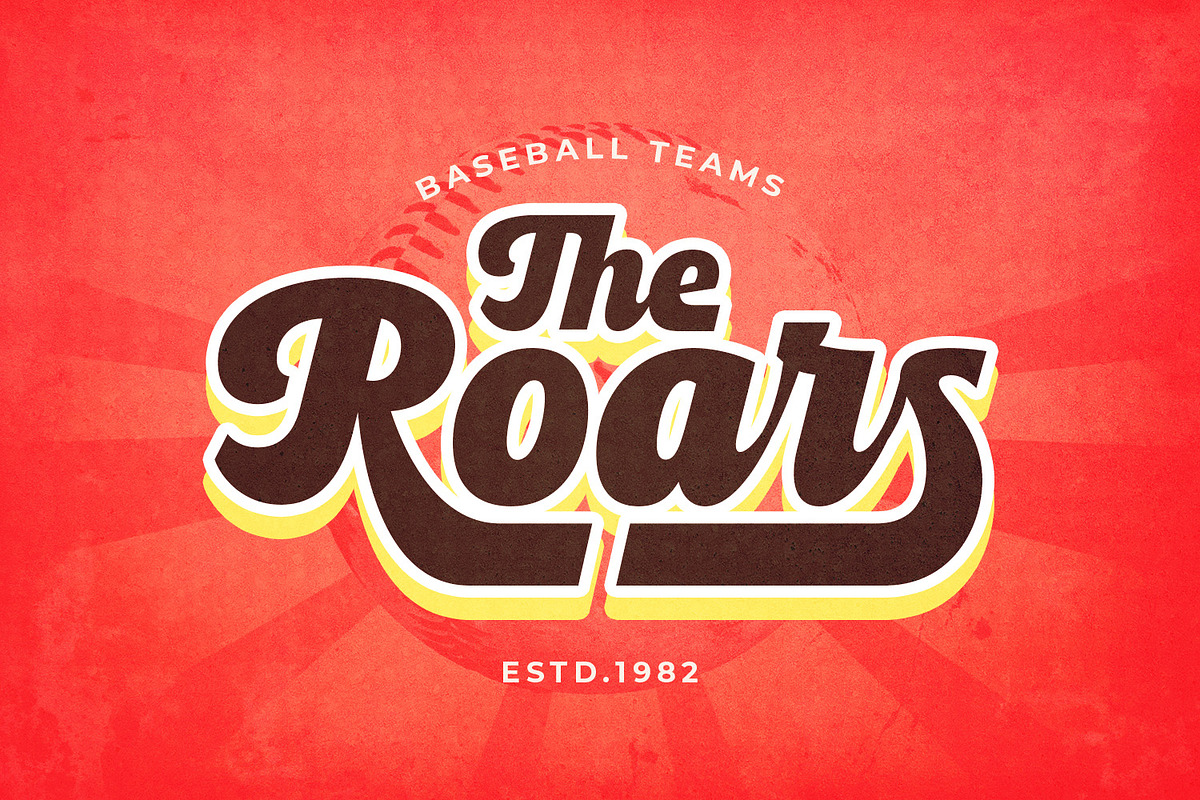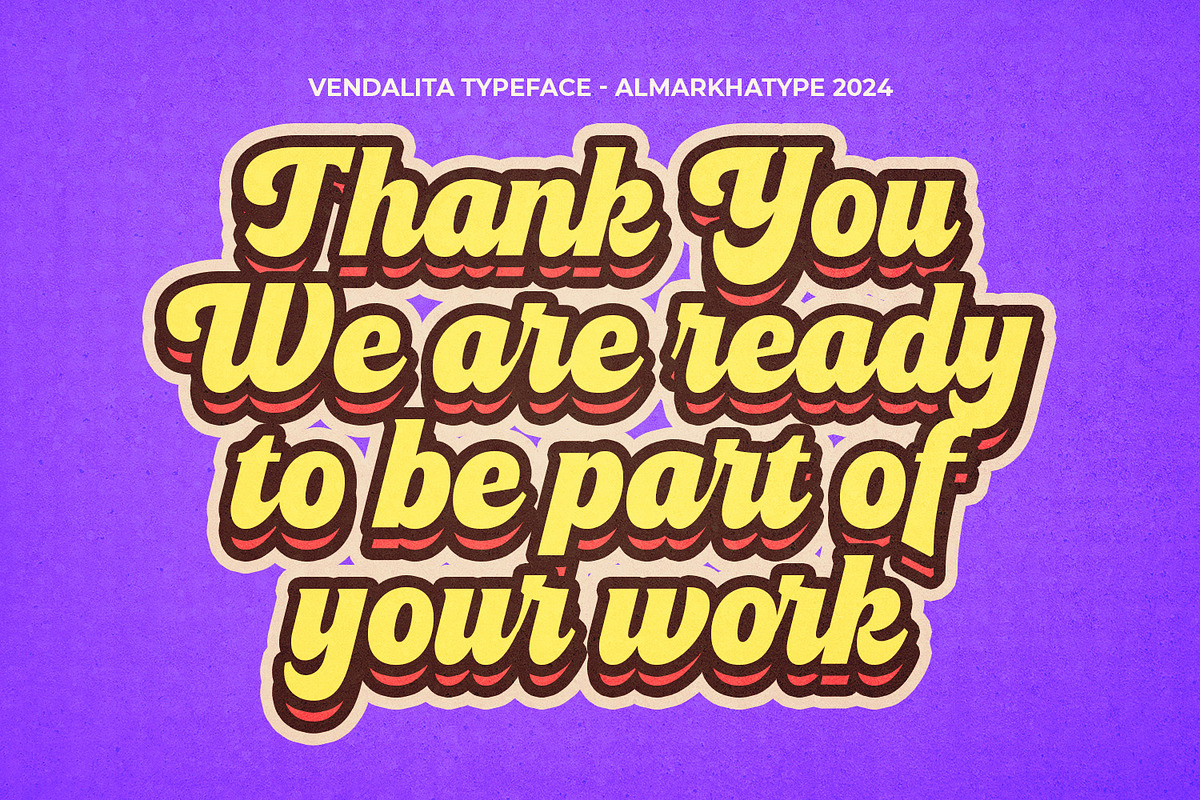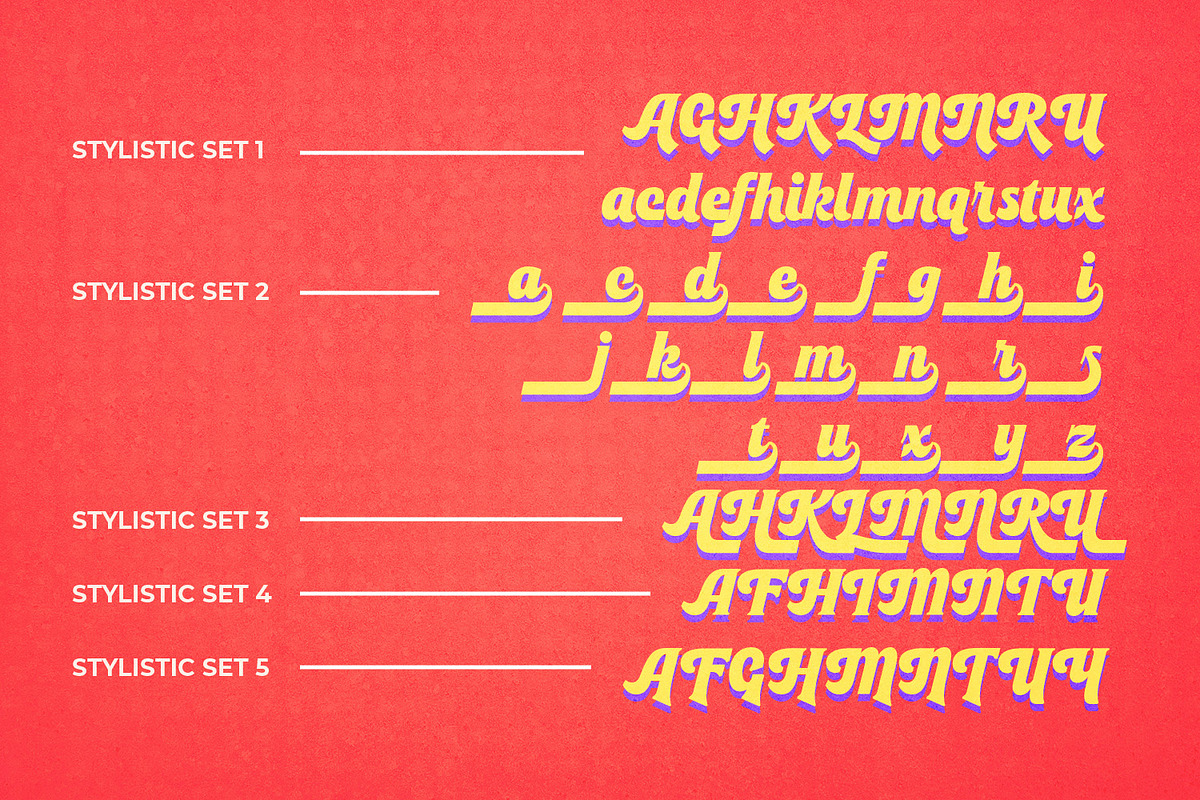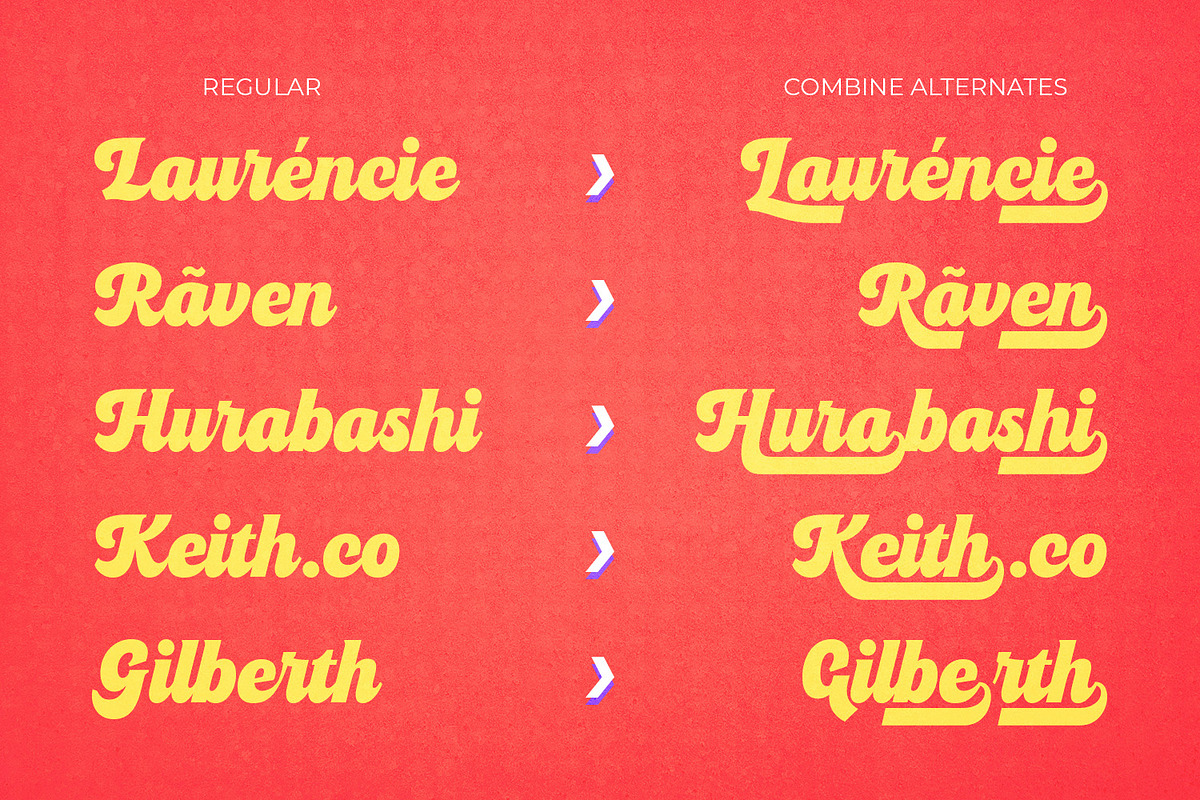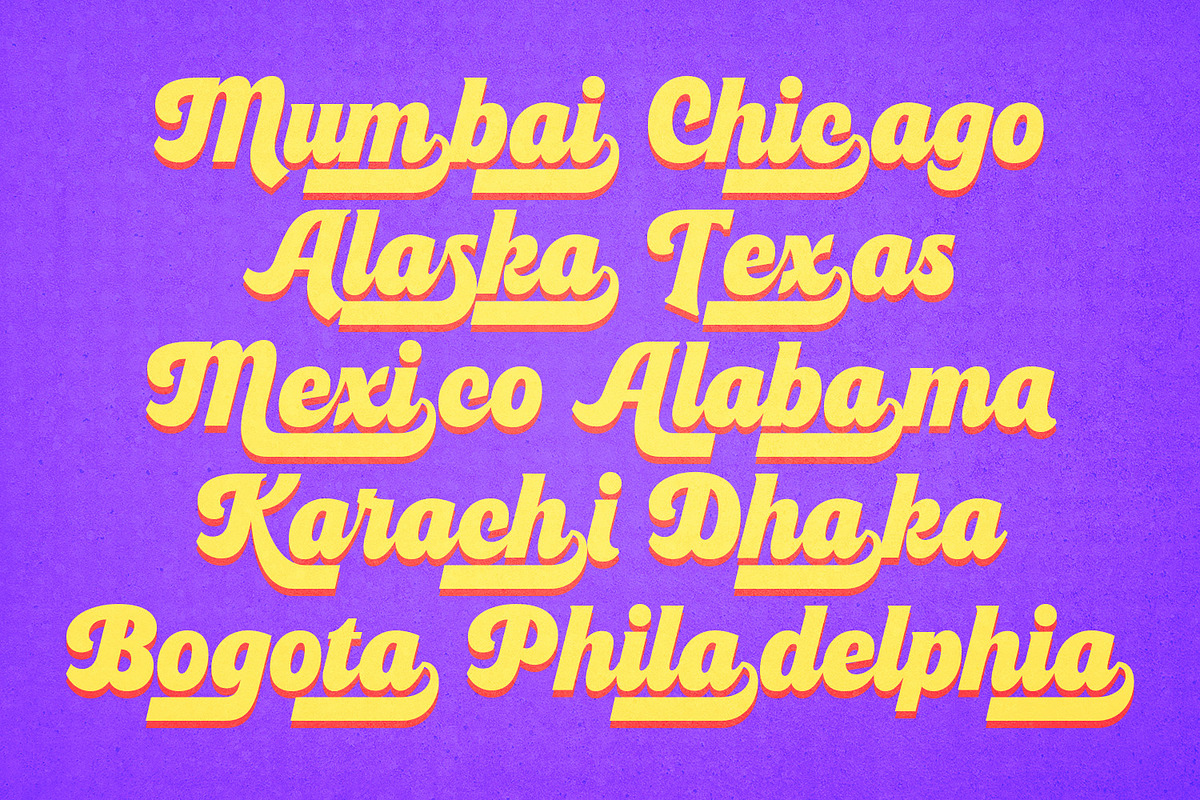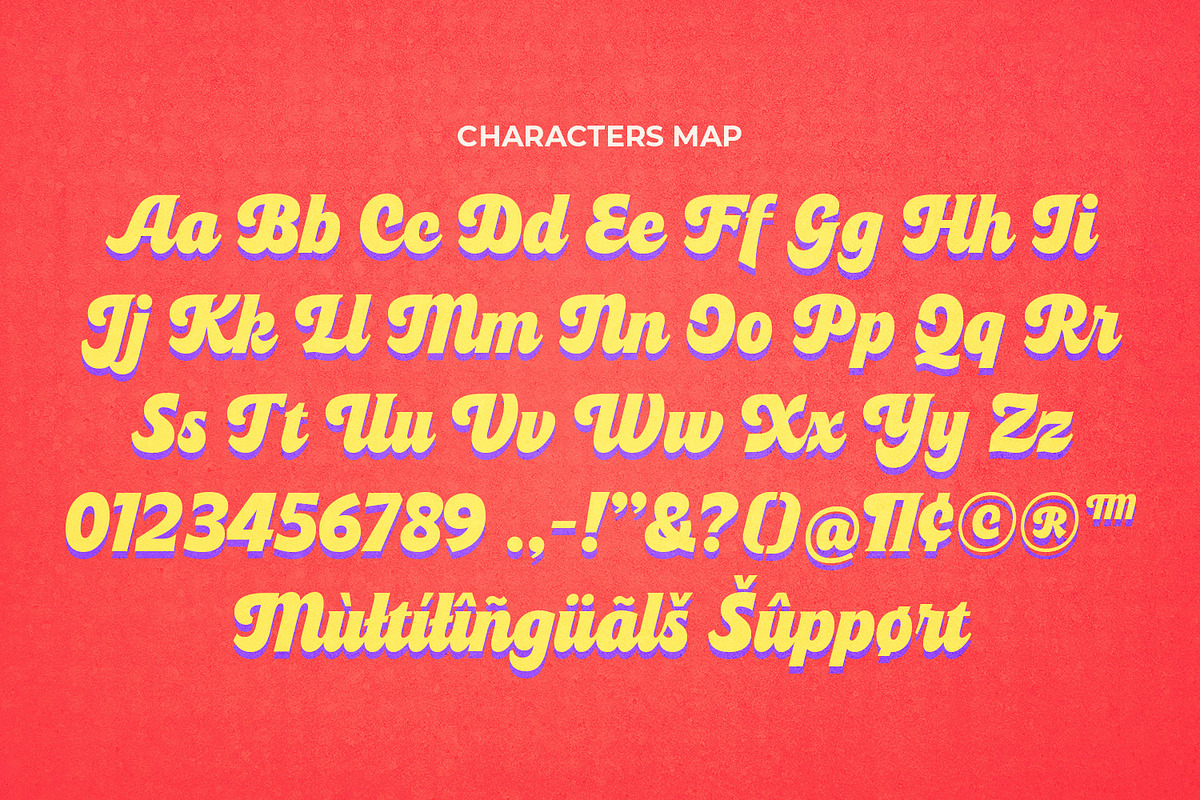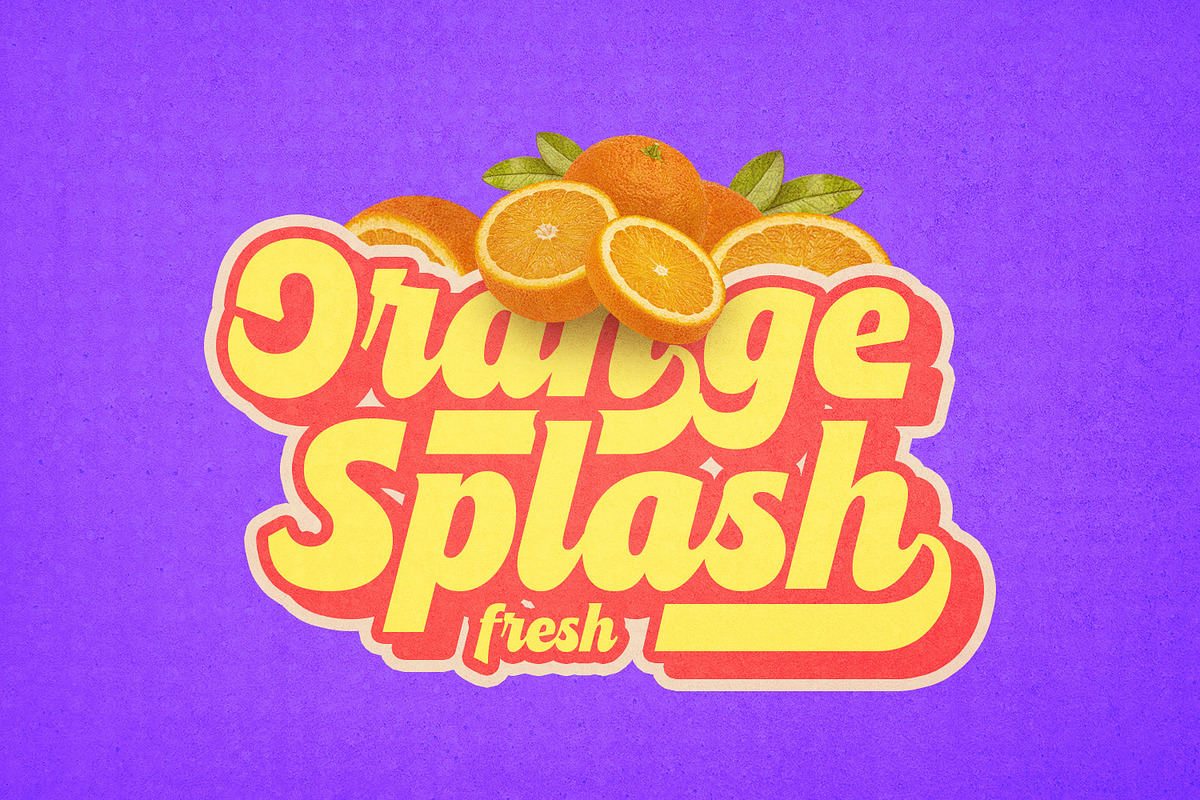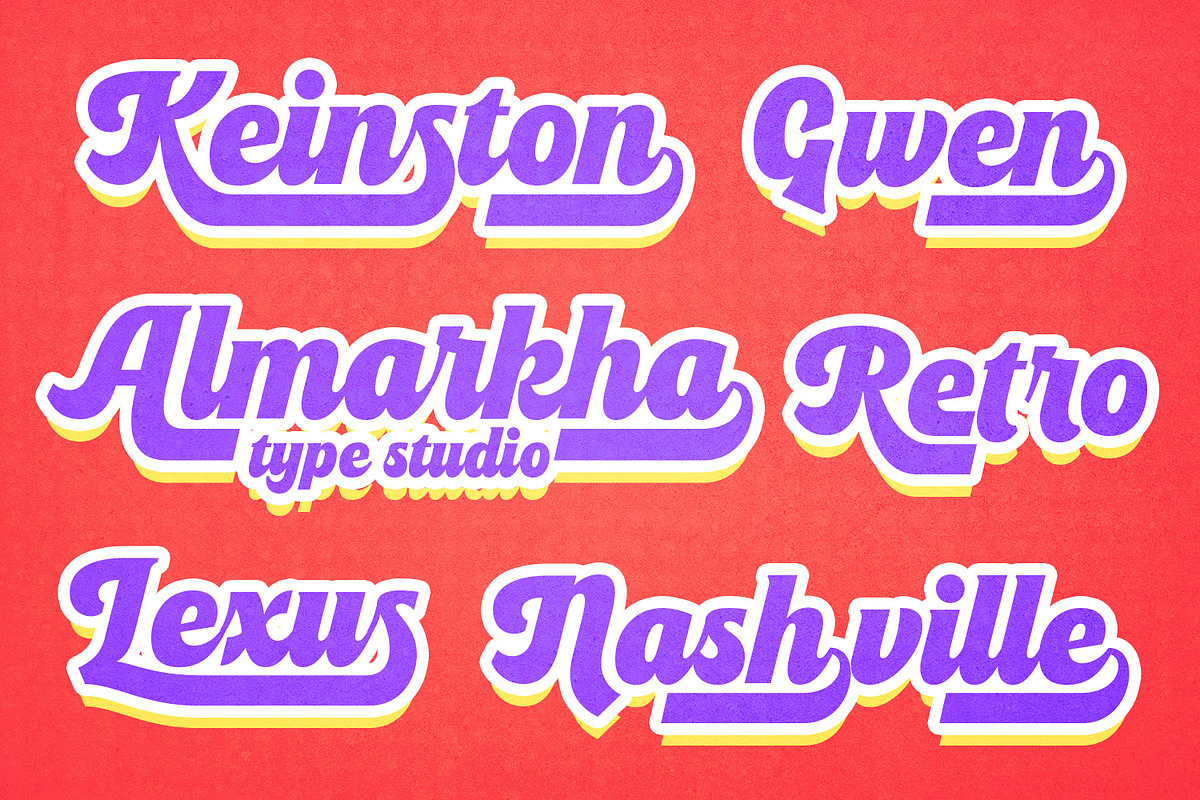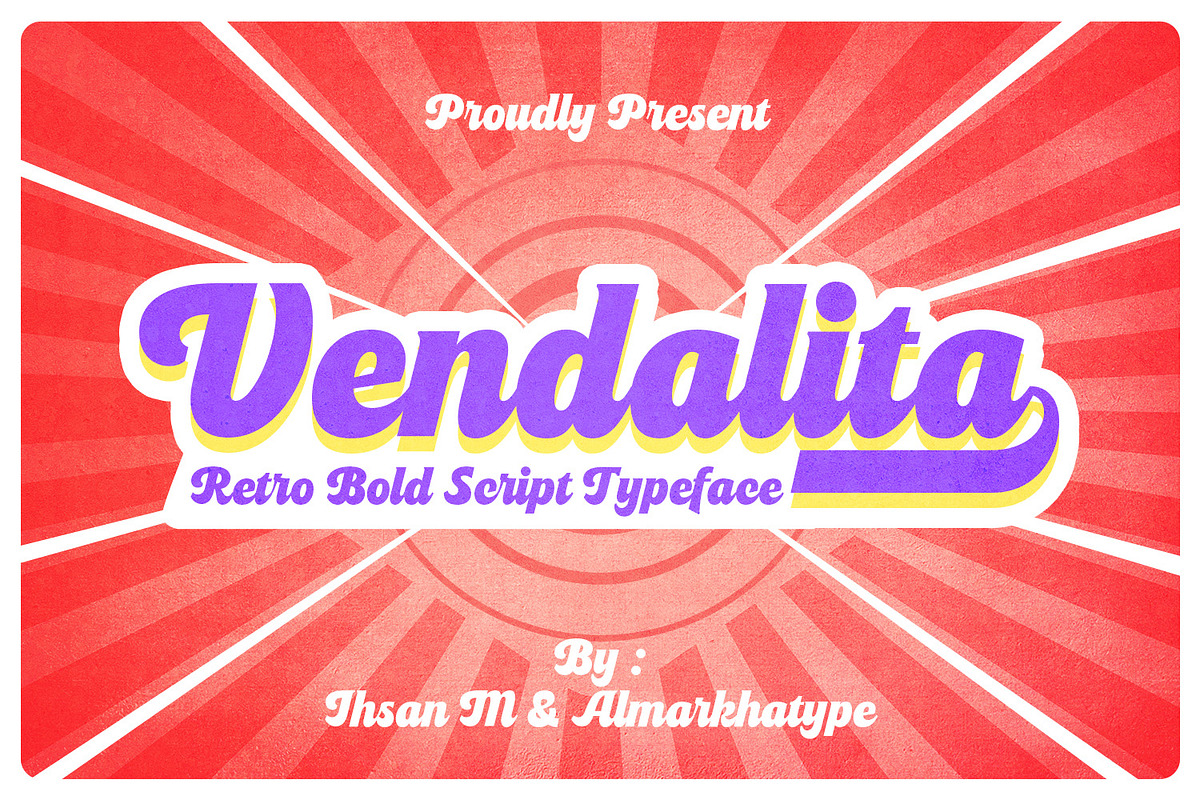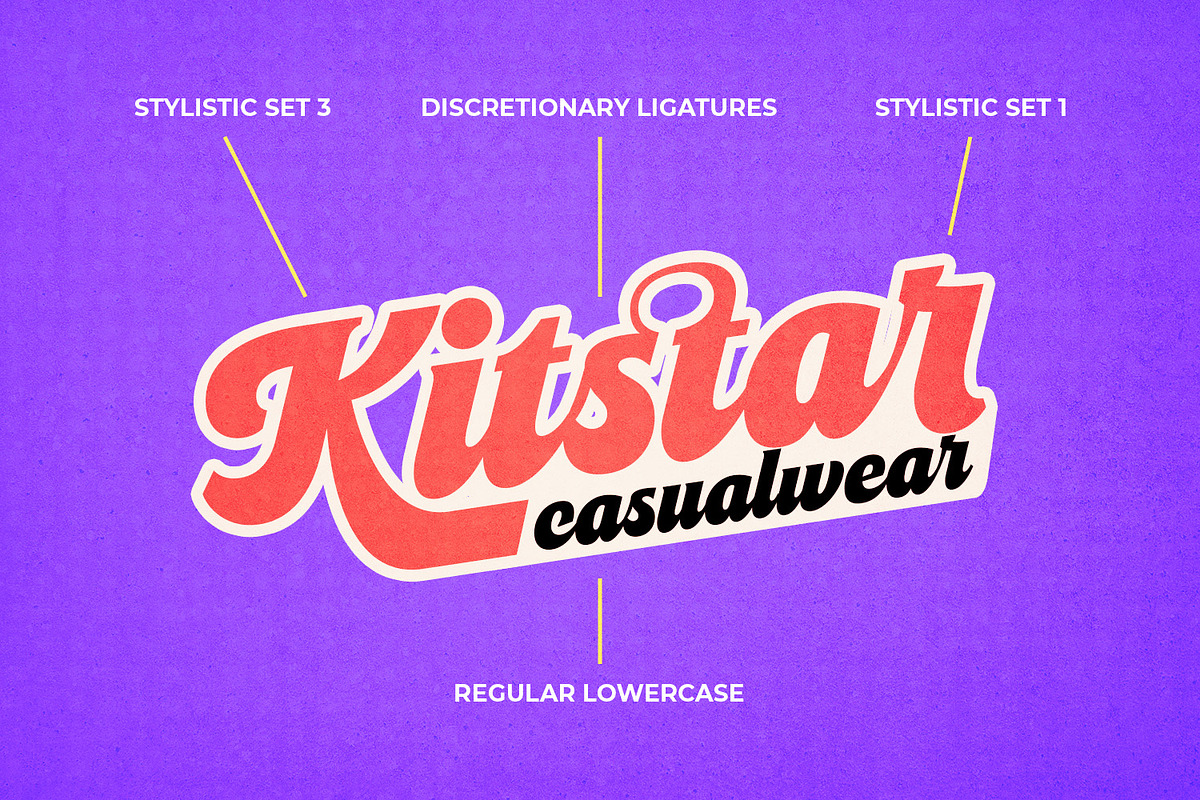
Vendalita – Retro Bold Script
Introducing Vendalita, a bold script font exuding classic vintage charm. Packed with stylistic sets, Contextual Alternatives, ligatures, and multi-language support, Vendalita offers endless creative possibilities.
Ideal for Logotypes, printed quotes, invitations, cards, product packaging, headers, Letterhead, Apparel, Web design, Magazine layouts, Books, and more, Vendalita elevates your designs with timeless elegance.
Embrace Vendalita’s classic yet modern appeal to make your work stand out. Let every letter tell a story of classic sophistication in your next project with Vendalita’s unmatched flexibility.
- Ligatures glyphs
- Alternate glyphs